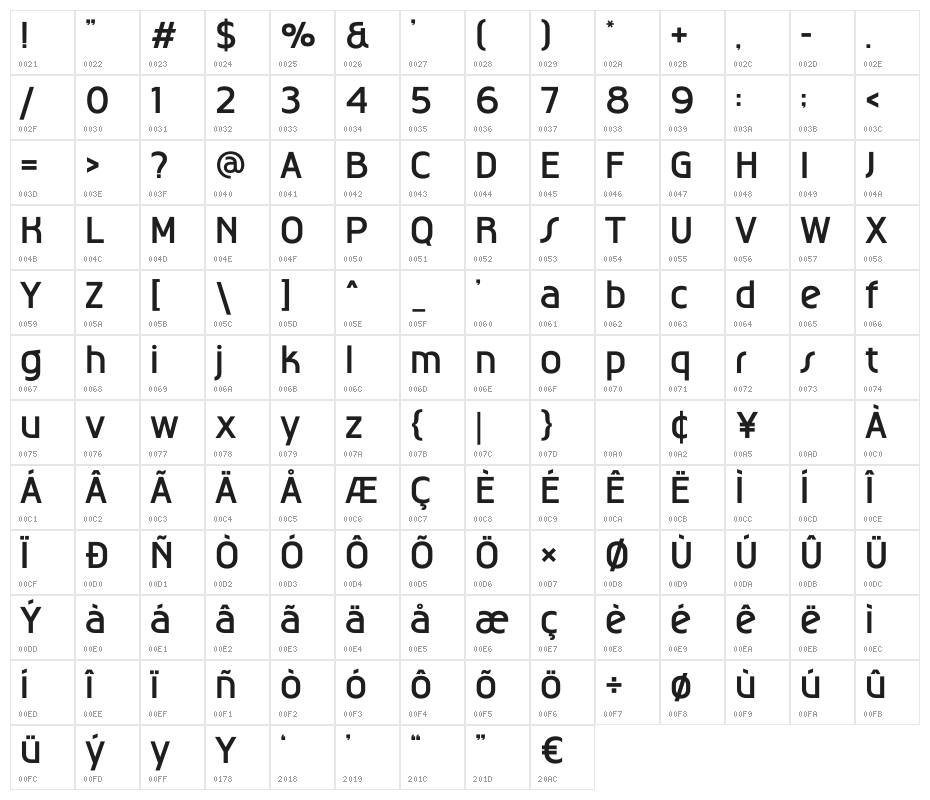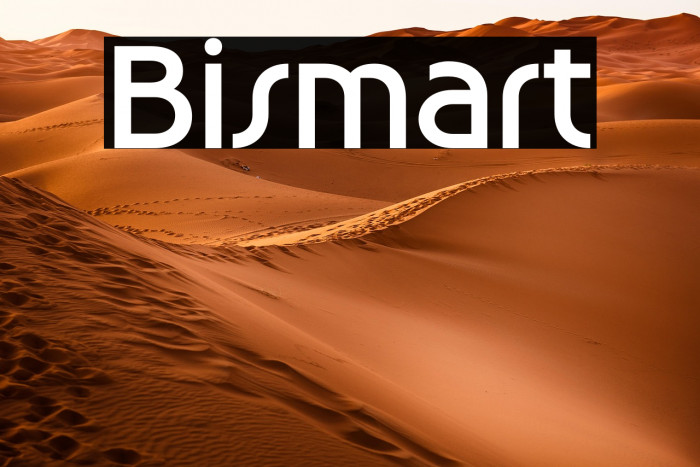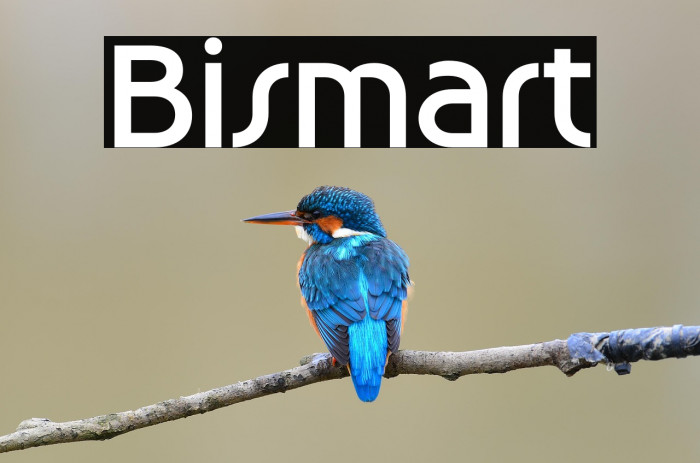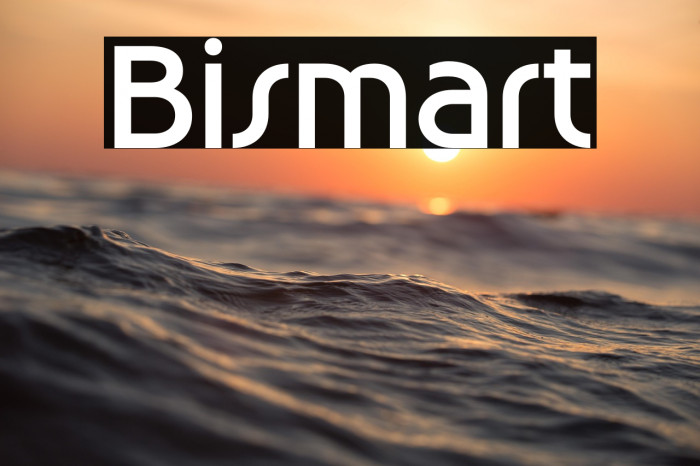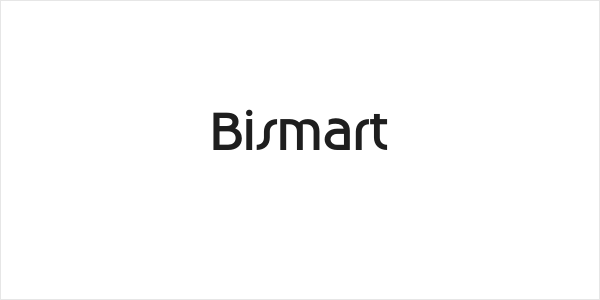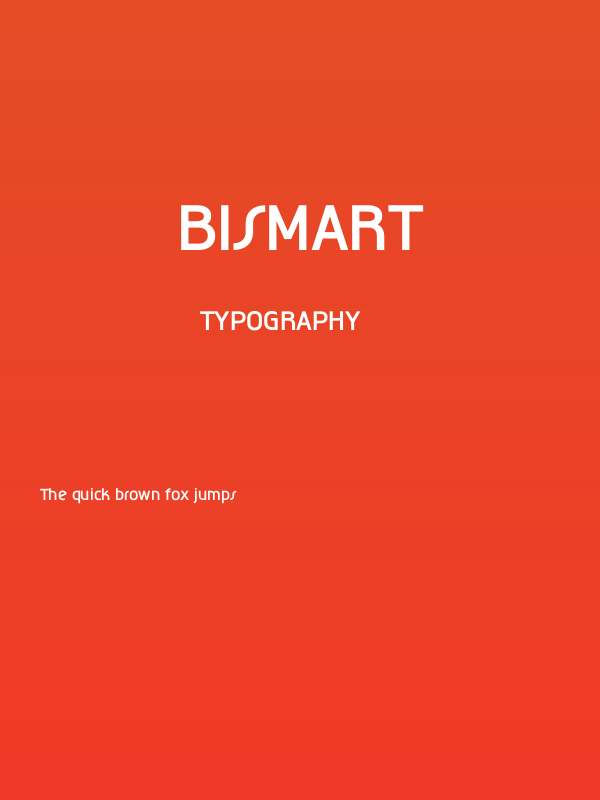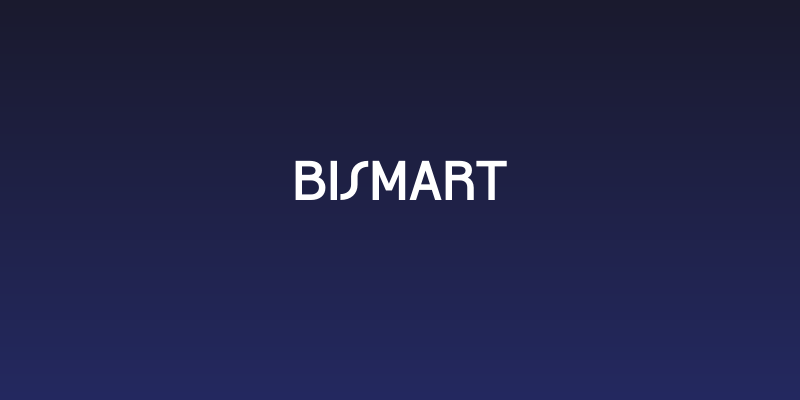
Bismart Font
Bismart Description
This font features a clean and modern sans-serif design, characterized by its geometric shapes and uniform stroke widths. The uppercase letters are bold and assertive, while the lowercase letters maintain a consistent style with slightly rounded edges, adding a touch of softness to the overall appearance. The numerals are clear and easily distinguishable, making them suitable for various applications. Special characters are well-integrated, maintaining the font's cohesive look. The overall design is versatile, suitable for both digital and print media, offering readability and a contemporary aesthetic.